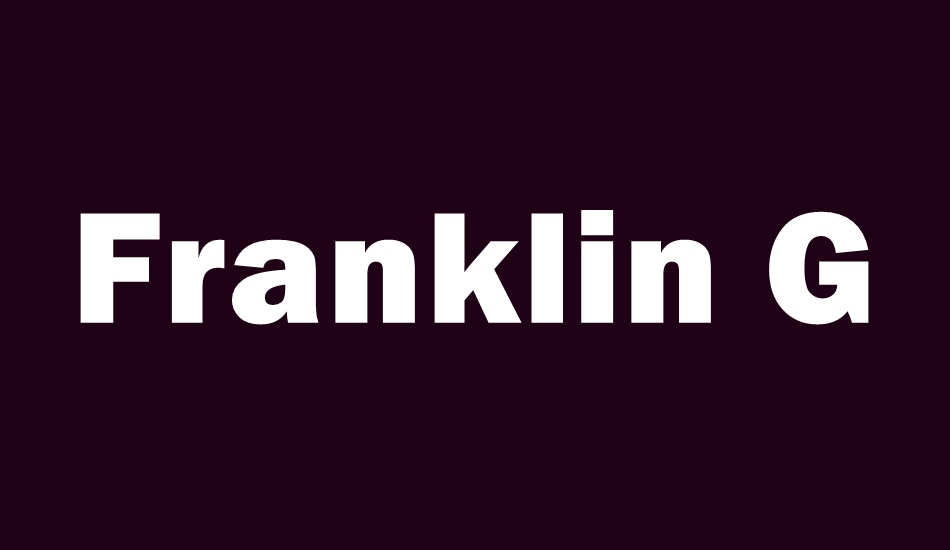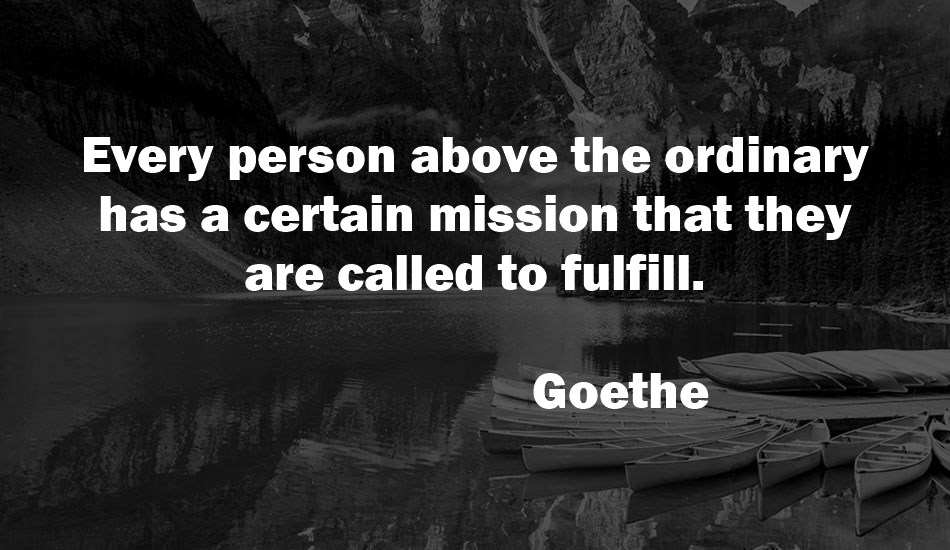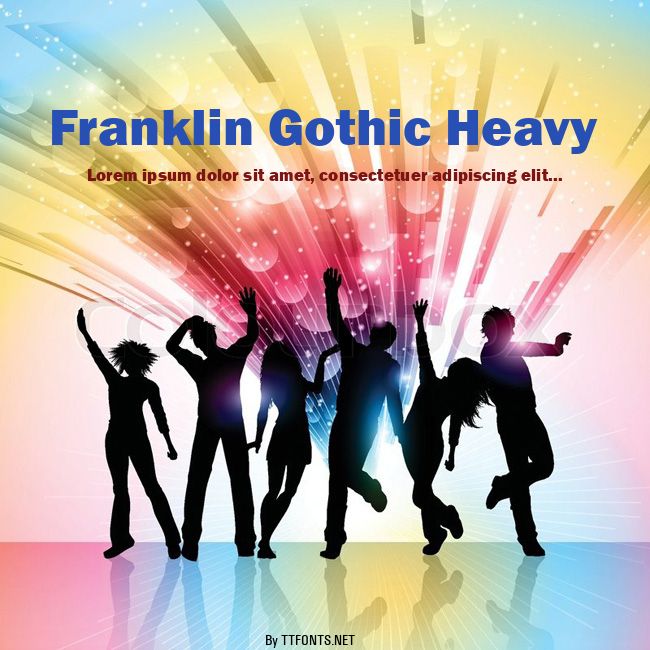
Franklin Gothic Heavy Font - Franklin gothic heavy font download is available free from 8font.com. Atf franklin gothic is a sans serif typeface with 18 styles, including franklin gothic heavy. You can use it for design, web, pdf, video and more. Franklin gothic heavy font is a basic, sans serif type font that. Elevate your designs with franklin gothic heavy regular font. Installable on pc, mac, linux, ios, and android platforms.
Franklin Gothic Heavy Font Is A Basic, Sans Serif Type Font That.